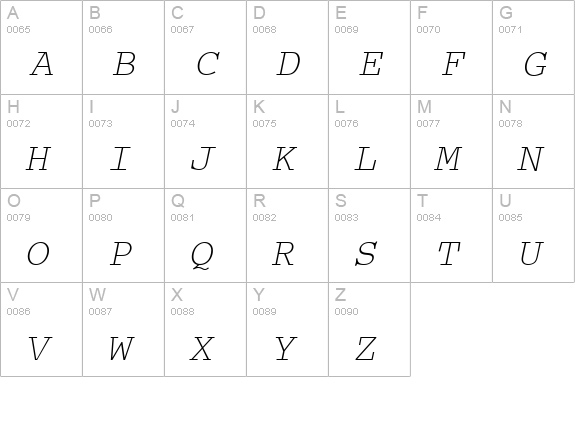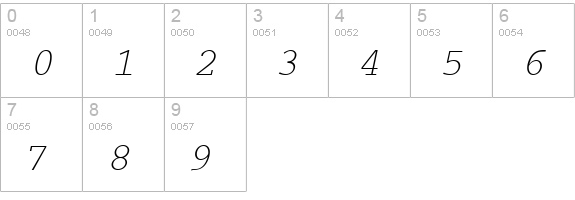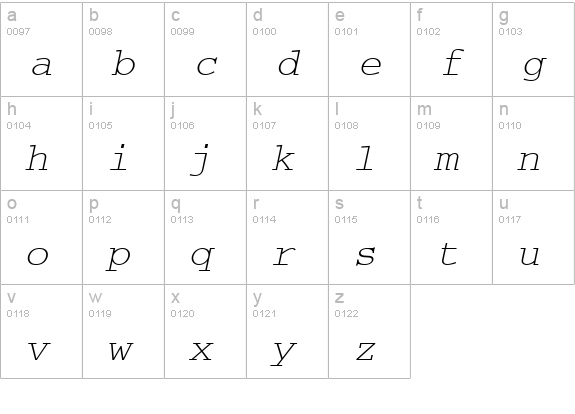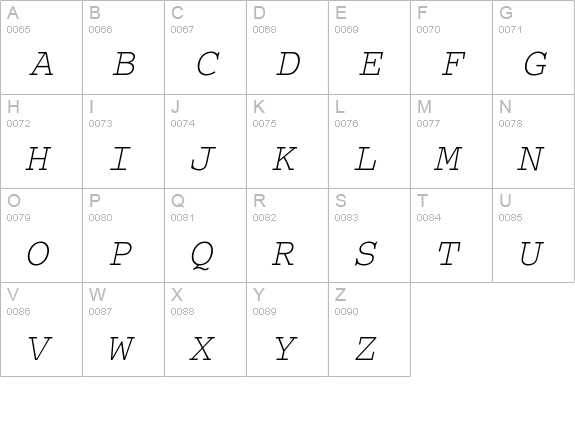
CourierMCY Oblique Font Details
CourierMCY Oblique is a distinctive, italic variant in the CourierMCY typeface family \xE2\x80\x94 well suited to design and typography projects.
CourierMCY Oblique is a sleek and modern font that exudes a sense of sophistication and professionalism. Its unique slanted style adds a dynamic touch to any design project, making it perfect for use in a variety of applications such as branding, advertising, and editorial design. What sets CourierMCY Oblique apart is not just its stylish appearance, but also the fact that it is available for free download at FontsMarket.com. This means that you can access this premium font without any cost, allowing you to elevate your projects without breaking the bank. With its clean lines and elegant curves, CourierMCY Oblique is sure to make a lasting impression on any audience.